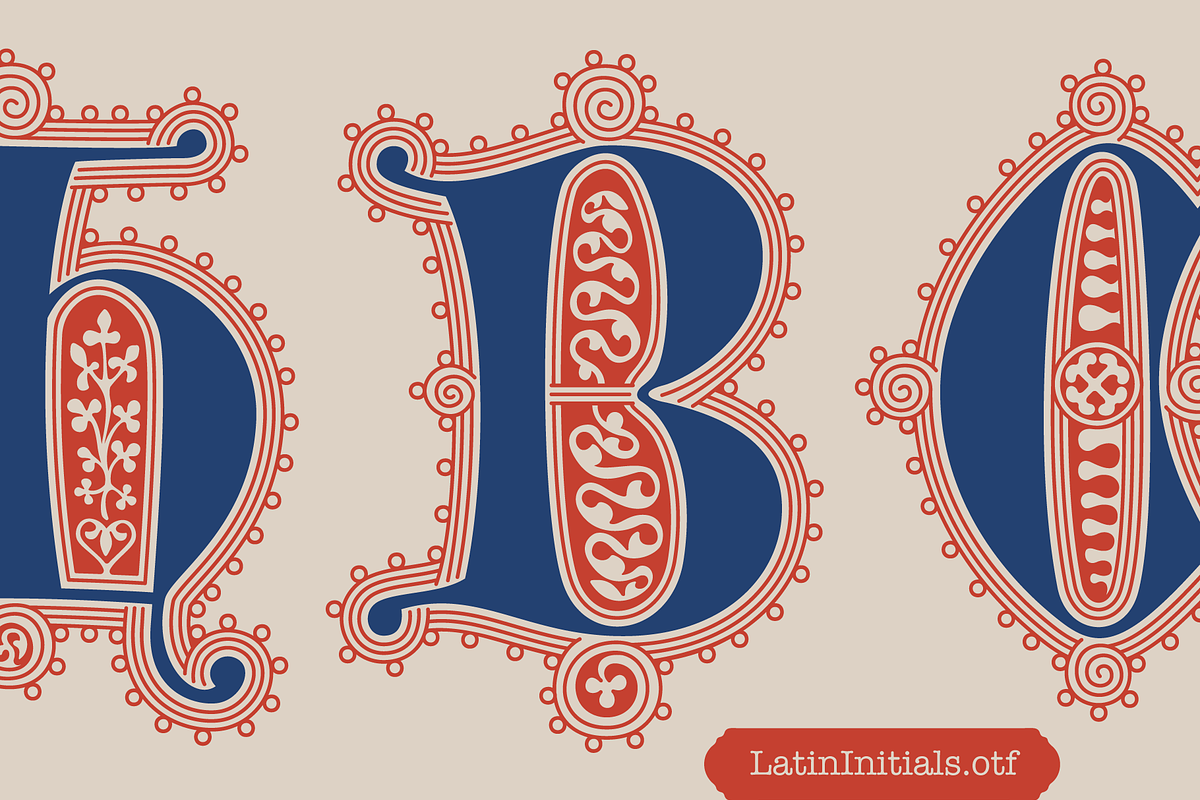
The Latin Initials Gothic Font Family Free Download is a distinctive and elegant typeface family that blends classical gothic elements with modern design. Featuring intricate letterforms with sharp edges and bold strokes, this font family is perfect for creating sophisticated branding, logos, posters, and any project that requires a touch of historical and artistic flair.
Latin Initials Gothic Font Family Free Download is ideal for designers looking to bring an air of refinement and tradition to their work. Whether you're designing for heritage brands, vintage-themed projects, or artistic endeavors, this font family will make your designs stand out. Download this elegant and timeless font family today and elevate your creative projects with its gothic charm!